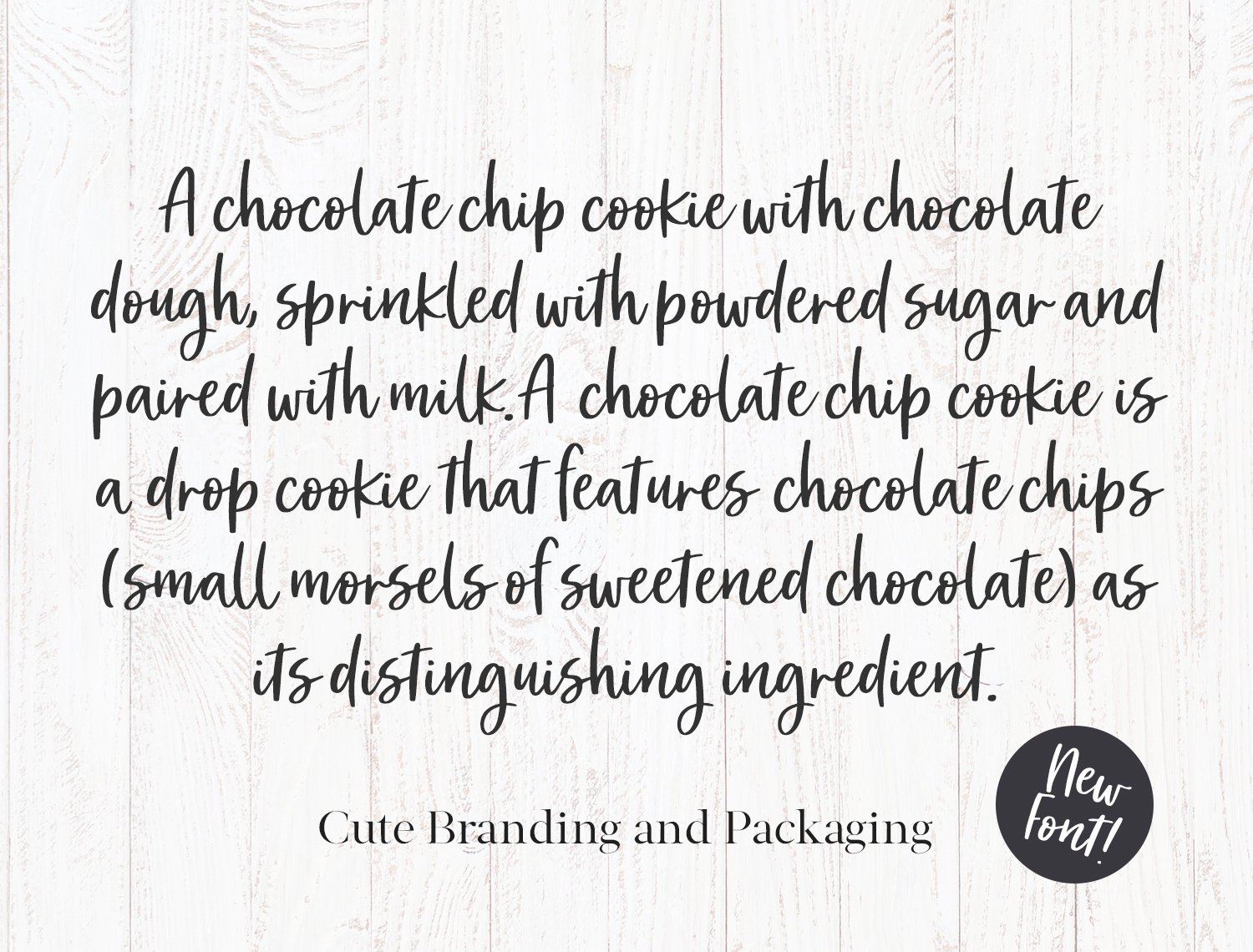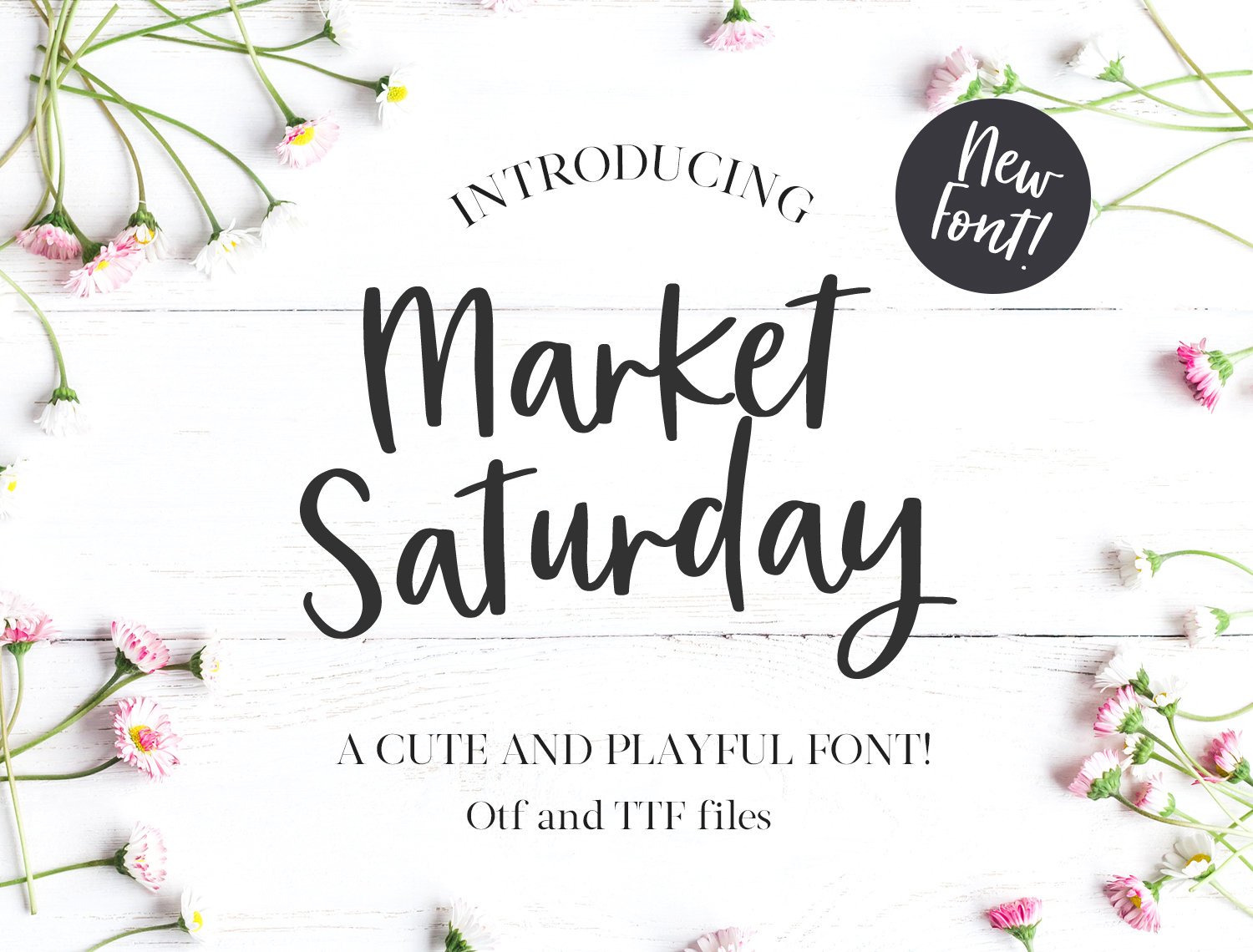
Market Saturday Script
Market Saturday Font – Handwritten font download – Modern calligraphy font – Font for scrapbooking, SVG, Crafts, Logo and more Market Saturday cute & playful, casual hand-lettered font . Perfect font for Scrapbookers, crafters, designers and more. You will receive both TTF and OTF versions of the font in your digital download file. The font consists of A full Character set with Punctuation and numerals.